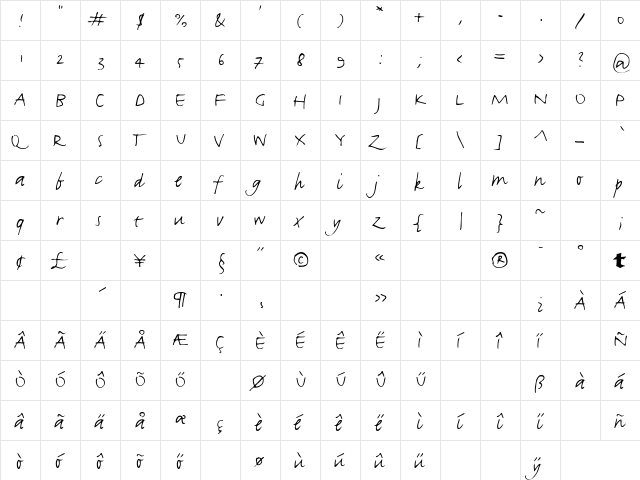
FFJustlefthand Regular
Design Context for FFJustlefthand Typeface
FFJustlefthand flows with the natural rhythm of handwritten lettering, making it ideal for designs that call for warmth and personal expression.
Font Pairing: Combine FFJustlefthand with a simple geometric sans for maximum contrast — the tension between flowing curves and clean structure is a classic typographic pairing.
Pro Tip: Use FFJustlefthand for short runs of text — names, titles, or taglines. Extended body copy in script faces tires the eye quickly.